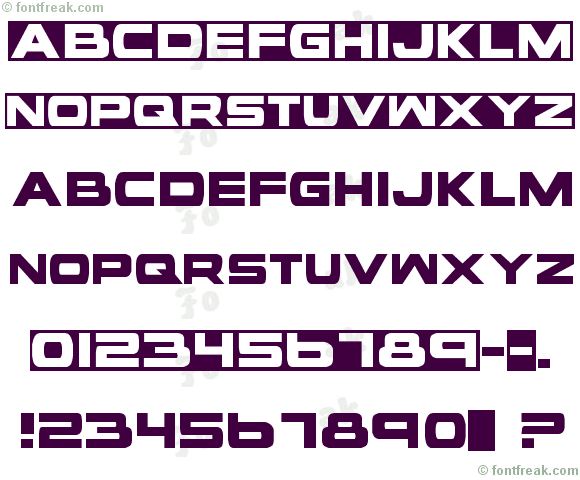
voxBOX
VoxBox by Iconian Fonts is a striking display font that captures attention with its unique geometric design and bold character. This freeware font is characterized by its thick, uniform stroke weight, which creates a powerful visual presence while maintaining a clean aesthetic. The letters feature sharp angles and rounded edges, offering a modern twist on traditional typography. The spacing is well-balanced, ensuring that each character is distinct and legible, making VoxBox an excellent choice for various design applications.
Ideal for graphic designers and content creators, VoxBox shines in use cases such as movie posters, vibrant event flyers, and eye-catching branding materials. Its bold nature makes it perfect for headlines and titles that need to stand out, while the geometric shapes can be utilized effectively in contemporary web design and advertisements. Small business owners looking to create a memorable visual identity will find VoxBox a valuable addition to their design toolkit.
The target audience for VoxBox includes graphic designers who appreciate innovative typefaces, small business owners seeking a distinctive look for their brand, and content creators in need of an impactful font for their projects. The versatility of VoxBox makes it suitable for a wide range of applications, from digital media to print.
What sets VoxBox apart is its ability to blend modern design elements with a classic feel, making it a timeless choice for a variety of projects. Whether you're crafting a promotional poster or designing a logo, the VoxBox font free download provides you with a powerful tool to elevate your work. With its attention-grabbing style and clean lines, VoxBox stands out as a bold and contemporary choice in the world of typography.